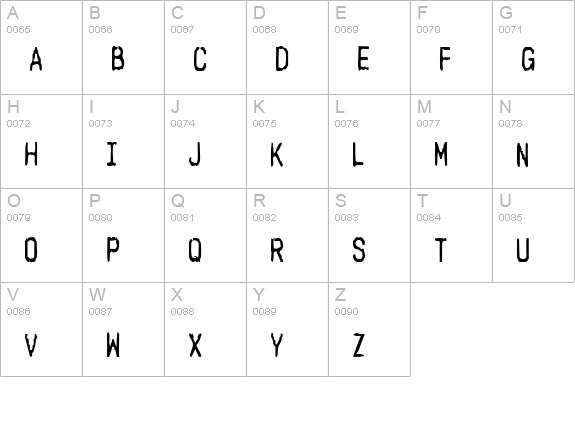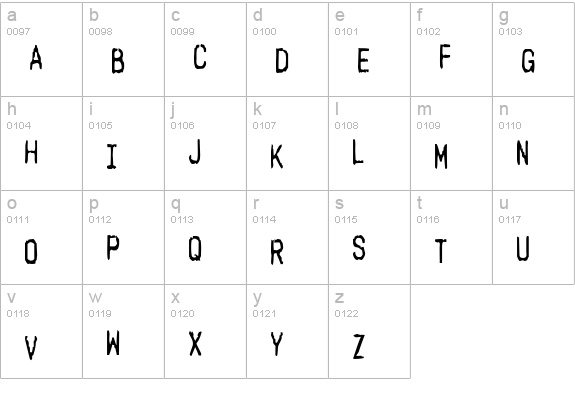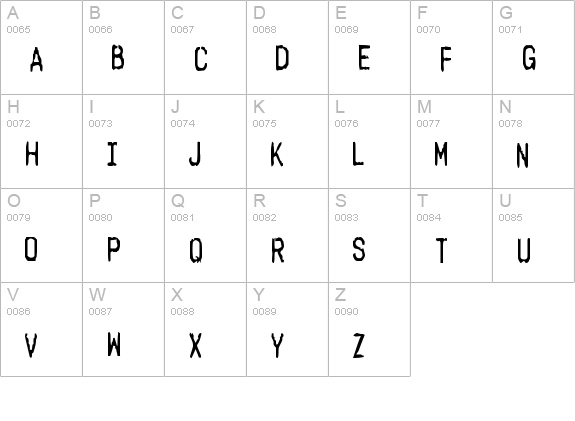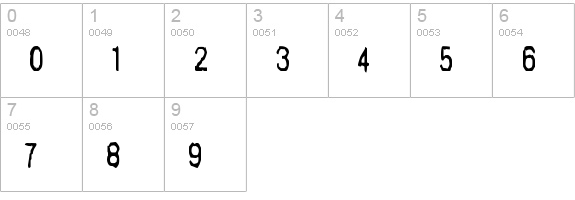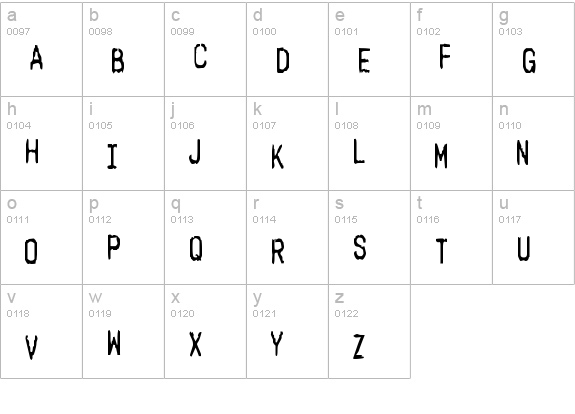
Harsh language AC Font Details
Introducing the Harsh language AC font, a captivating and edgy typeface that brings a whole new level of intensity to your designs. With its sharp angles and bold strokes, this font exudes a sense of power and rebellion, perfect for projects that demand attention and make a statement. But what sets the Harsh language AC font apart is not just its unique design, but also its accessibility. Yes, you heard it right - this striking font is available to download for free at FontsMarket.com. Whether you're a professional designer looking to add an extra edge to your creations or a creative enthusiast wanting to experiment with a font that truly stands out, the Harsh language AC font is readily accessible and just a click away. Imagine the possibilities as you unleash the untamed energy of this font on your posters, logos, social media graphics, and more. The Harsh language AC font's distinctive style is sure to leave a lasting impression on your audience, grabbing their attention and captivating their imagination. So why wait? Don't miss out on the opportunity to enhance your designs with the Harsh language AC font. Download it for free today at FontsMarket.com and let your creativity run wild with this powerful and captivating typeface. Unleash the power of words like never before with the Harsh language AC font - your next design masterpiece awaits!